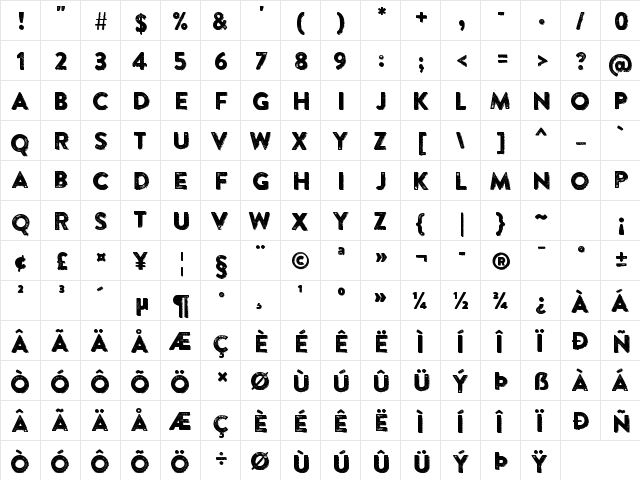
Brandon Printed Double
Design Context for Brandon Printed Typeface
Brandon Printed is a composed and adaptable typeface that performs quietly and consistently across a wide range of design contexts.